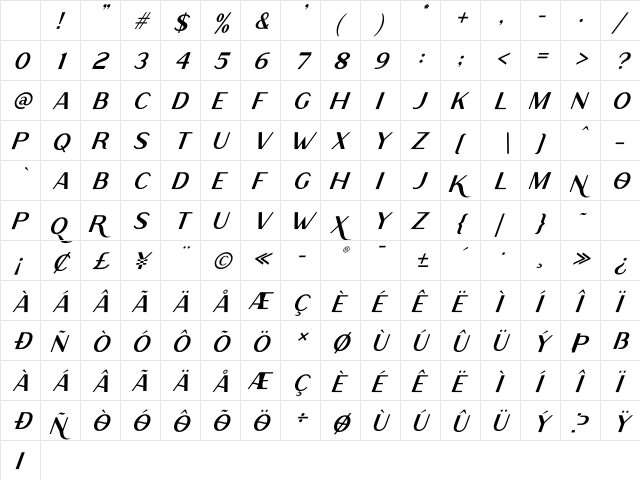
Rodano Italic is a composed and adaptable typeface that performs quietly and consistently across a wide range of design contexts. The slanted form adds forward momentum and visual energy.